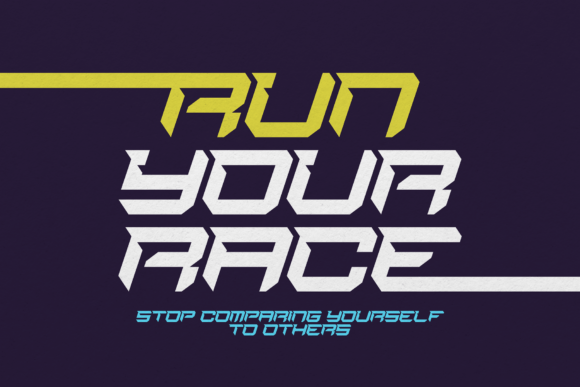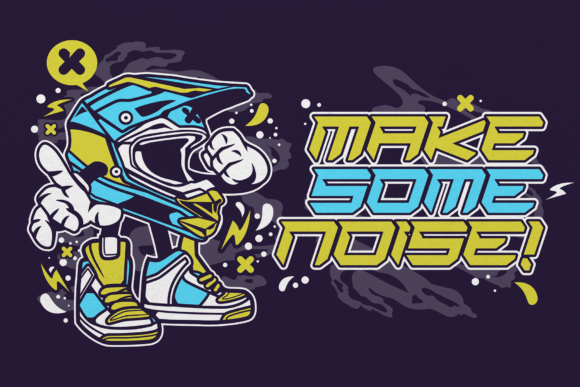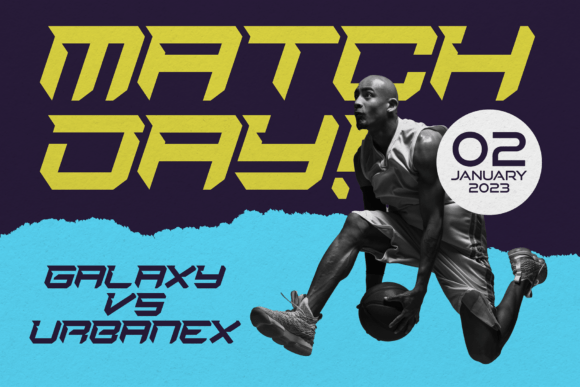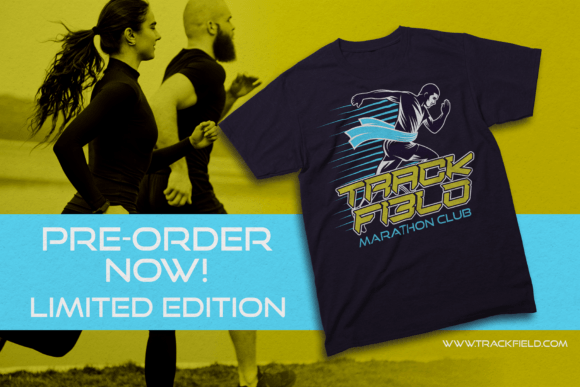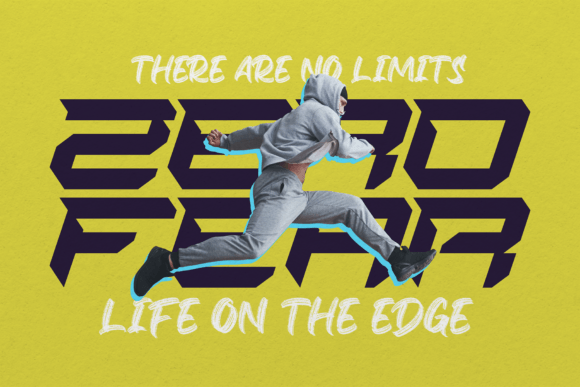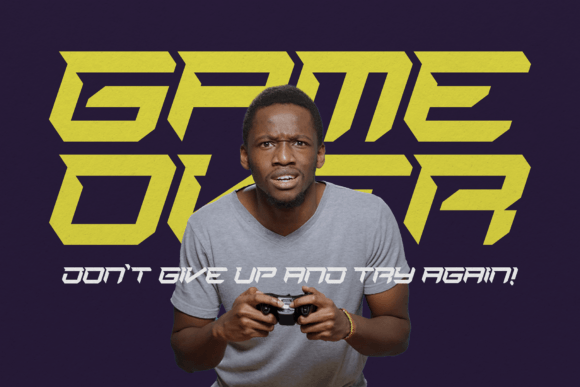
The Thrill of Speed: Unleashing Creativity with Aerobody Font
Imagine you’re at the starting line of a high-speed racing track, the roar of the crowd in the background, and the rush of adrenaline as you hit the gas. This is the moment when creativity knows no bounds, and the possibilities seem endless. As designers, we know that the right font can elevate our work from ordinary to extraordinary. That’s why we’re excited to introduce the Aerobody Font, a powerful racing theme font that’s ready to take your automotive-related projects to the next level.
With its sleek and modern design, Aerobody Font is perfect for headlines, jerseys, logos, branding, posters, packaging, advertising, and much more. Whether you’re working on a high-end sports car campaign or a grassroots racing team, this font will give your project the speed and style it needs. As designers, we know how valuable a versatile and high-quality font can be, and Aerobody Font is no exception.
Aerobody Font Key Features
- Font Family: Aerobody Font is a sans-serif font family designed for use in various digital media.
- Unique Characteristics: Aerobody Font features a sleek and modern design with clean lines, geometric shapes, and a high level of legibility.
Aerobody Font Review
I recently had the chance to work with the Aerobody font, and I have to say it’s a real mixed bag. Let’s dive into what works and what doesn’t.
- ✨ Unique and futuristic design: The Aerobody font is definitely one-of-a-kind, with its sleek lines and geometric shapes. It’s perfect for projects that need a touch of futurism.
- ✨ High legibility: Despite its futuristic design, the font is surprisingly easy to read, even at smaller sizes. This makes it a great choice for body text.
- ✨ Versatility: The font comes in a range of weights and styles, from light to bold, making it easy to use in a variety of contexts.
- ⚠️ Limited character set: While the font is great for titles and headings, the character set is somewhat limited, which can make it difficult to use for longer blocks of text.
- ⚠️ Not suitable for small text: While the font is legible at larger sizes, it can become difficult to read at smaller sizes, which can be a problem for web applications or mobile interfaces.
- ⚠️ Overly reliant on style: The font’s unique design can make it feel overly reliant on style, rather than substance. This can be a problem if the project requires a more subtle approach.
Overall, I think the Aerobody font is a great choice for projects that need a touch of futurism, but it’s not suitable for every project. With its unique design and high legibility, it’s a great choice for titles and headings, but it may not be the best choice for longer blocks of text or smaller text sizes.
Aerobody Font Practical Application Guide
The Aerobody font is ideal for creating modern and sleek designs in Canva, such as logos, social media graphics, and presentations.
The Aerobody font is perfect for creating sophisticated designs in Adobe Photoshop or Illustrator, such as typography, branding, and editorial layouts.
The Aerobody font is great for creating professional-looking presentations and documents in PowerPoint or Word, such as business reports, resumes, and newsletters.
To get the most out of the Aerobody font, use it for modern and sleek designs, and pair it with other fonts that complement its clean and minimalist style.
Common use cases include logos, social media graphics, presentations, typography, branding, and editorial layouts.
Alternatives to Aerobody Font for Designers
Montserrat is a sans-serif font that is highly legible and versatile. It is perfect for use in digital products, signage, and editorials. Montserrat is a great alternative to Aerobody Font as it has a similar modern feel but with a more geometric and structured design.
Comparison: While Aerobody Font has a more rounded and fluid design, Montserrat is sharper and more angular. Montserrat is also more versatile and can be used in a wider range of applications.
Open Sans is a clean and modern sans-serif font that is highly legible and versatile. It is perfect for use in digital products, websites, and applications. Open Sans is a great alternative to Aerobody Font as it has a similar friendly and approachable feel but with a more open and airy design.
What is the recommended font size for optimal readability with Aerobody Font?
The recommended font size for optimal readability with Aerobody Font is between 12pt and 24pt. However, this may vary depending on your design’s specific requirements and the intended audience. Experiment with different font sizes to achieve the best results.